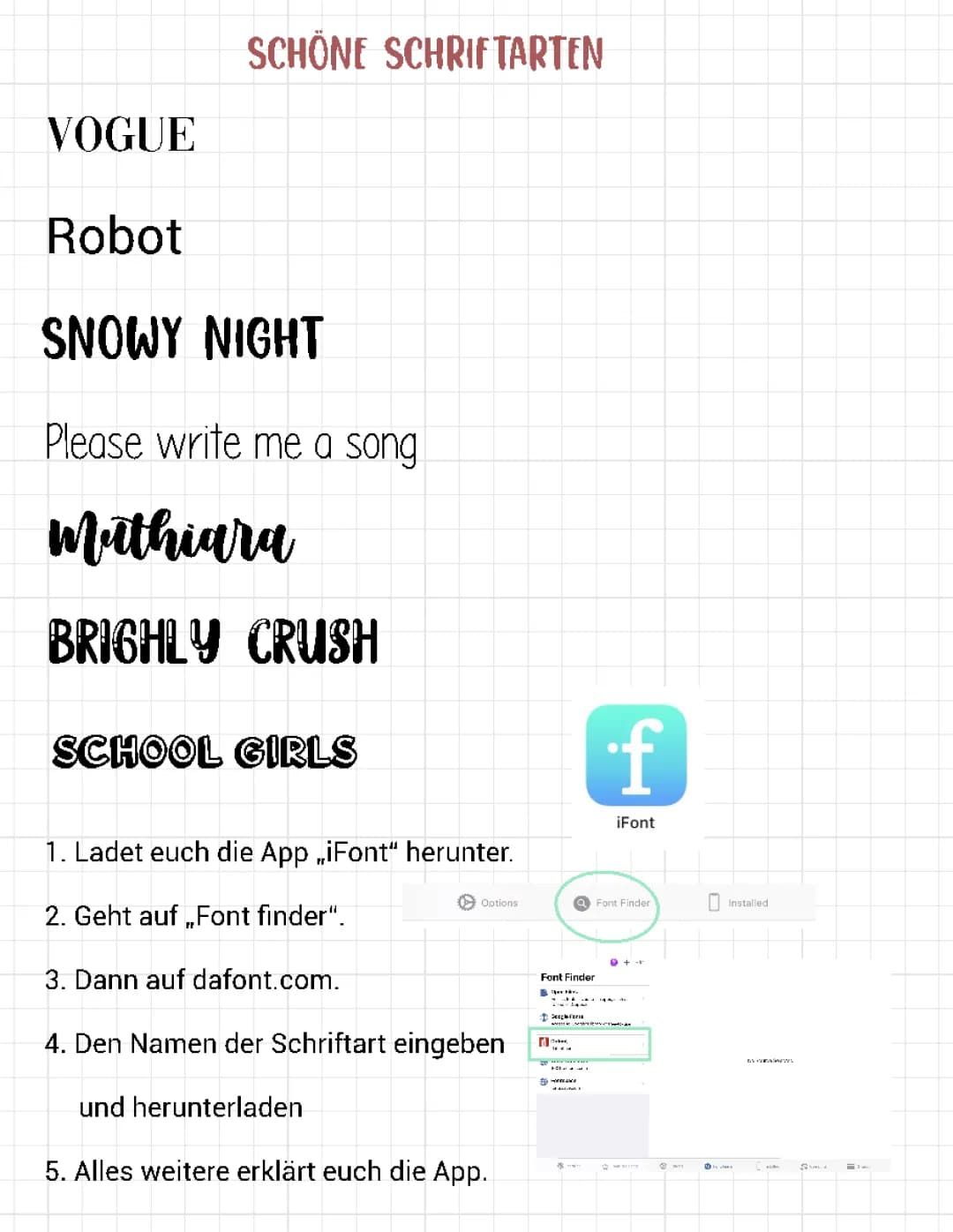
Schöne Schriftarten für GoodNotes + Anleitung
VOGUE
SCHÖNE SCHRIFTARTEN
Robot
SNOWY NIGHT
Please write me a song
Mathiara
BRIGHLY CRUSH
SCHOOL GIRLS
The page showcases several examples of stylish fonts that users might consider for their GoodNotes documents:
• VOGUE: A sleek, modern font suitable for headlines or titles
• Robot: A playful, tech-inspired typeface
• Snowy Night: An elegant, winter-themed font
• Mathiara: A sophisticated script font
• Brightly Crush: A bold, eye-catching display font
• School Girls: A casual, handwriting-style font
Example: The "VOGUE" font could be used for creating striking headers in fashion-related notes or presentations within GoodNotes.